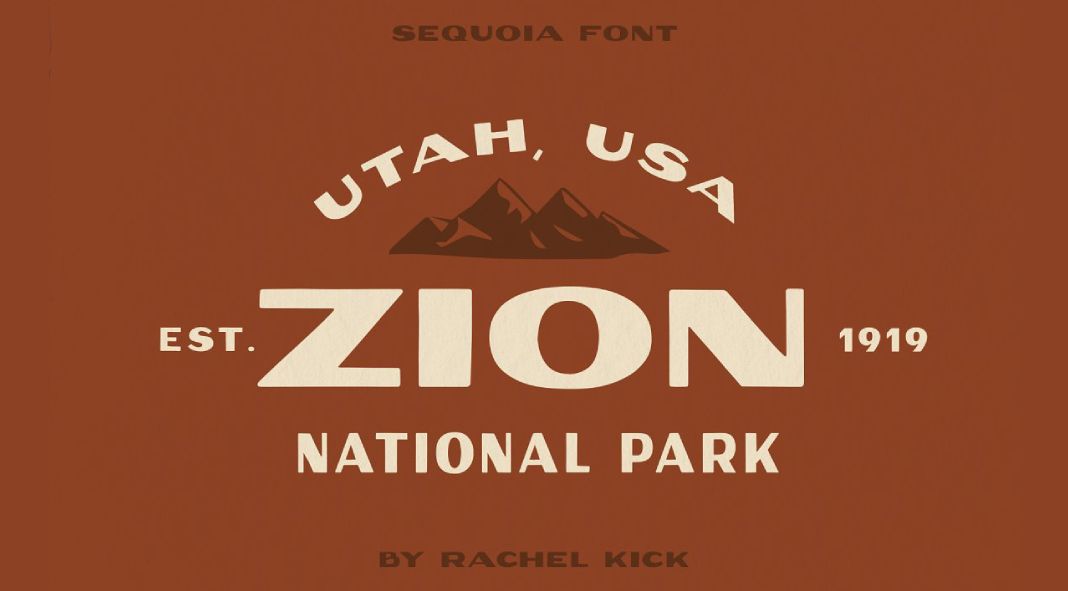
There are fonts that whisper and fonts that shout. And then there’s Sequoia – a typeface that doesn’t just speak but sings with the nostalgia of a bygone era, echoing the spirited strokes of the W.P.A. National Park posters from the 1930s.
Crafted by the talented Rachel Kick, the Sequoia Display font family is a delightful ode to the golden age of poster artistry. With its quirky, hand-drawn charm, Sequoia evokes a sense of playfulness and organic allure, inviting designers and enthusiasts alike to embark on a typographic journey through time.
At its core, Sequoia is more than just a font; it’s a testament to the enduring legacy of design heritage. Inspired by the iconic posters that adorned the walls of train stations and national parks, Sequoia captures the essence of adventure and wanderlust, infusing each character with the rugged beauty of the great outdoors.
What sets Sequoia apart is its versatility, embodied in the revolutionary concept of variable fonts. With Sequoia’s variable font, designers have the power to seamlessly transition between “extra narrow” and “extra wide” styles, effortlessly adjusting the width to suit their creative vision. This dynamic feature pays homage to the ingenuity of the original W.P.A. posters, where text flowed and adapted to fill every inch of space with harmonious precision.
For those who prefer a more traditional approach, fear not – Sequoia offers a range of set styles, including Narrow, Regular, and Wide variations, ensuring that every design need is met with grace and flexibility. Whether it’s a bold headline or a subtle accent, Sequoia’s diverse widths cater to every aesthetic preference with finesse.
But Sequoia is more than just a tool – it’s a gateway to a world of endless possibilities, where every design choice carries the weight of history and the promise of adventure. Whether it’s crafting vintage-inspired posters, designing whimsical branding, or adding a touch of nostalgia to digital interfaces, Sequoia stands as a testament to the enduring allure of timeless design.
In a fast-paced world driven by innovation and change, Sequoia reminds us to pause, breathe, and appreciate the beauty of simplicity. It’s a gentle reminder that sometimes, the most extraordinary stories are told with just a few strokes of a pen – or in this case, the strokes of a font.
So, the next time you embark on a creative journey, remember the spirit of Sequoia – bold, adventurous, and unapologetically unique. Let its playful charm guide you as you explore new horizons and carve your path through the ever-evolving landscape of design. After all, in a world filled with countless fonts, Sequoia stands tall as a timeless masterpiece, beckoning us to embrace the art of storytelling, one letter at a time.